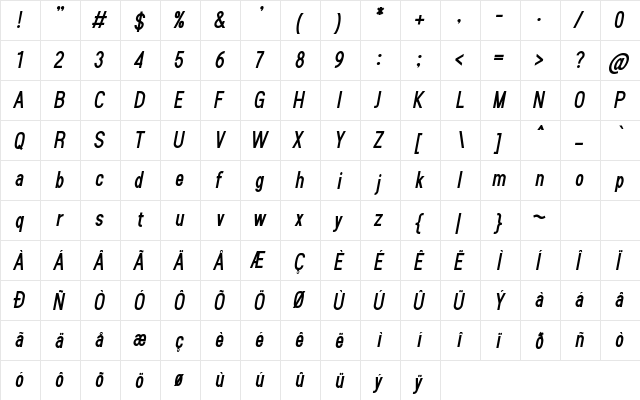
Sanlulus Bold Italic
Design Context for Sanlulus Typeface
Sanlulus is a composed and adaptable typeface that performs quietly and consistently across a wide range of design contexts. The dynamic lean of this cut emphasises speed and emphasis in any layout. Its bold stroke weight gives it real presence on the page.
Pro Tip: Use Sanlulus for emphasis, pull quotes, and subheadings where its slanted energy can add rhythm to the layout.